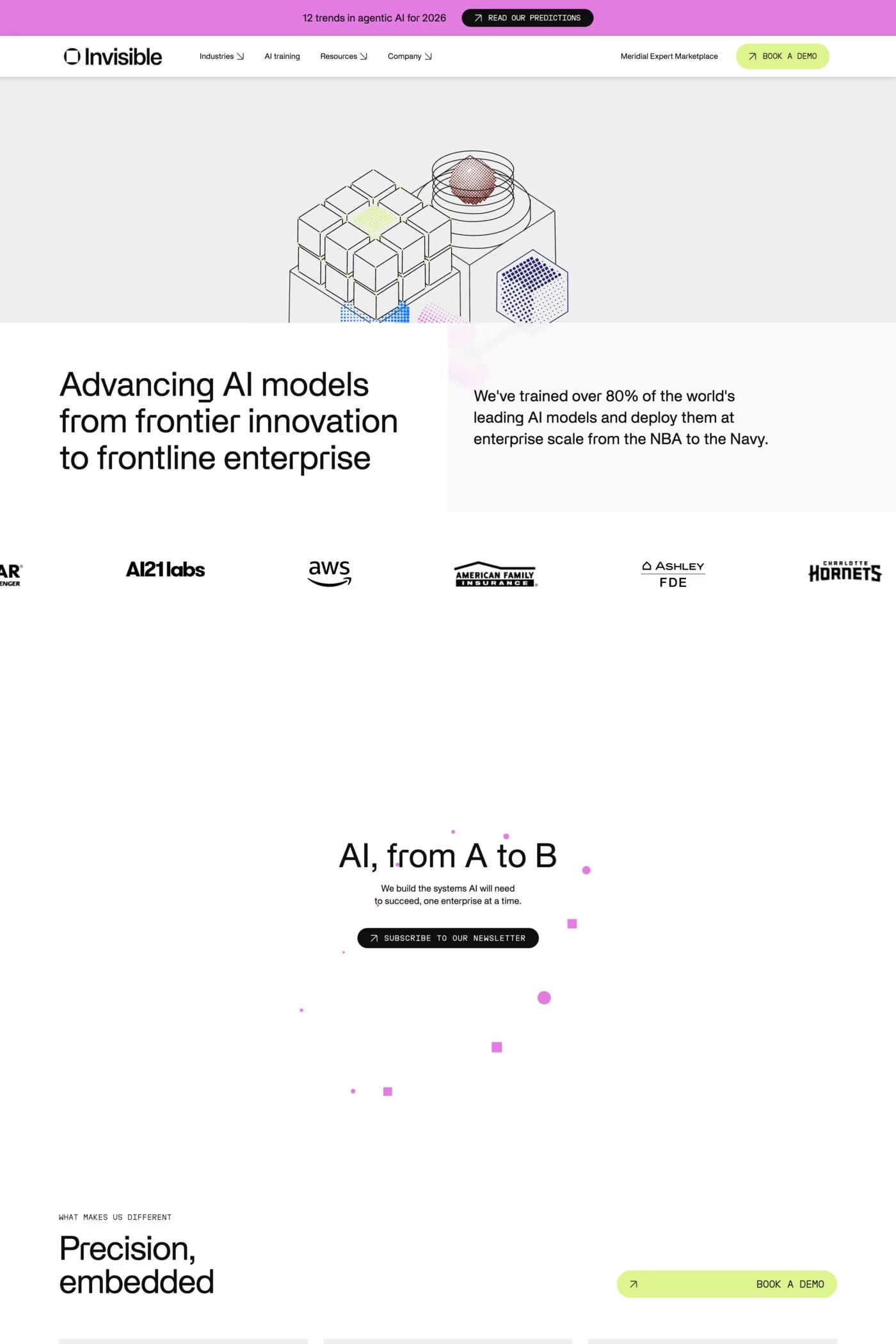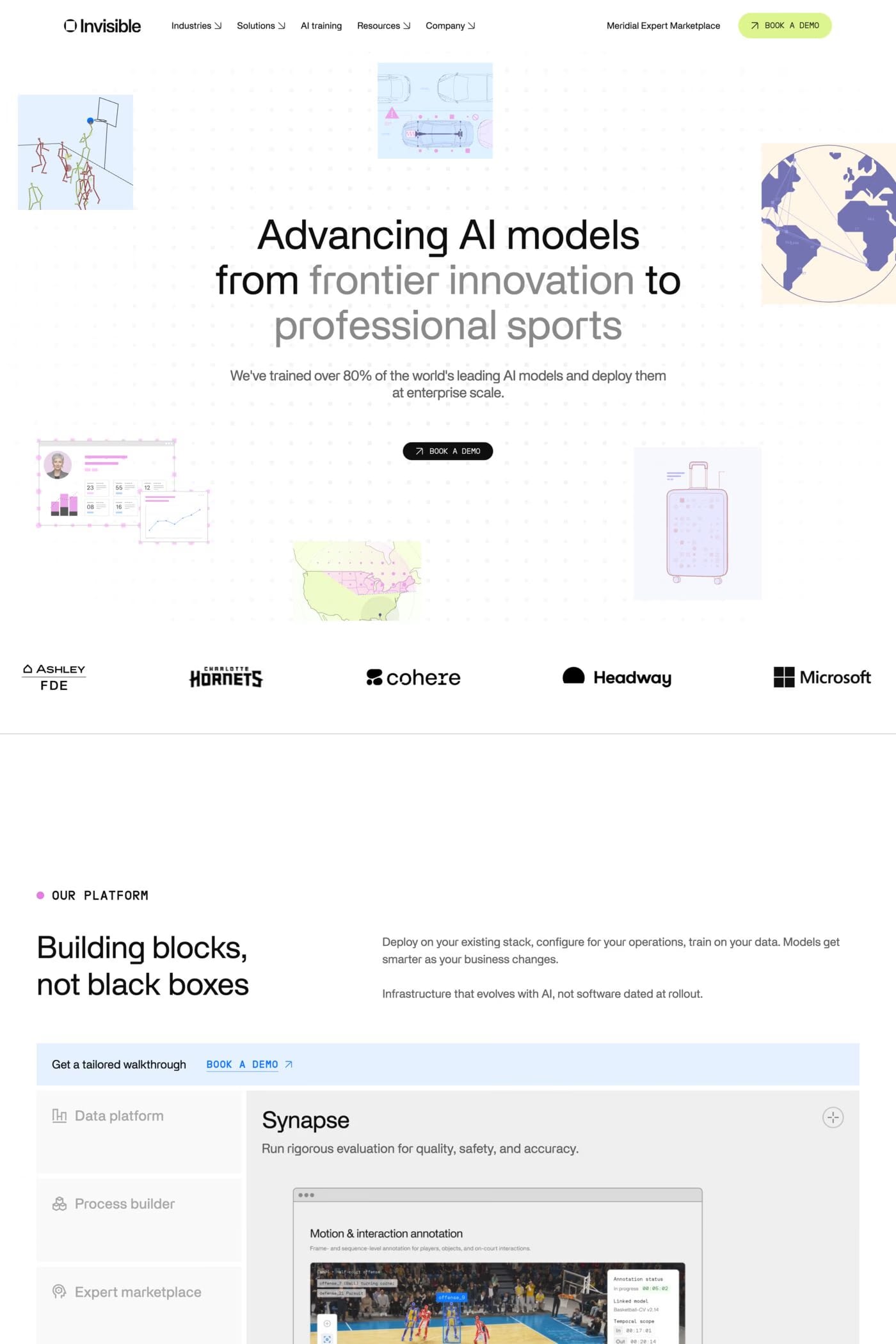
APK Praktikal is a sans-serif typeface from APK Type Foundry.
APK Praktikal is a true monospaced and monolinear font family that strives to live up to the motto ‘less is more’. An ink trap is only used when legibility requires it.